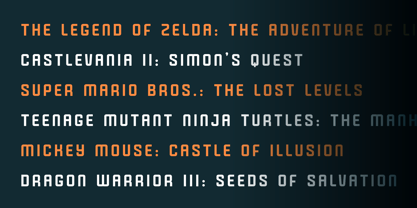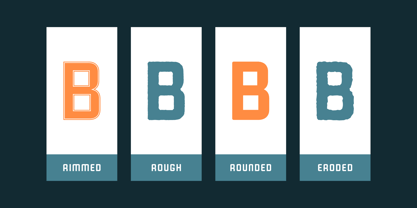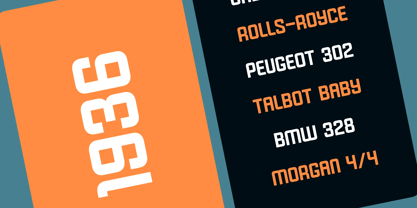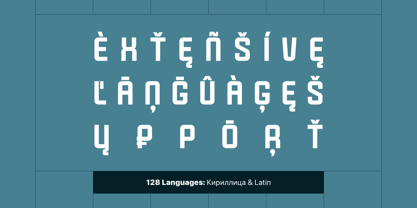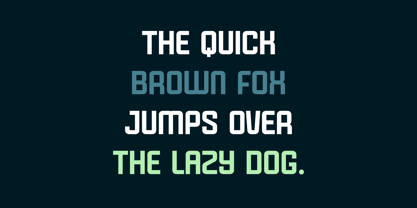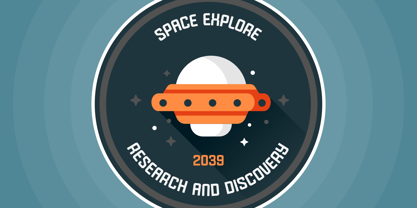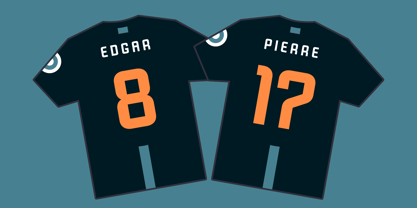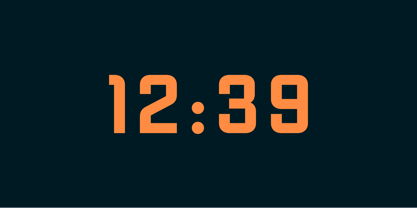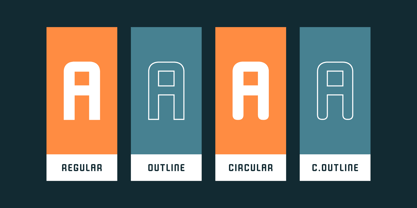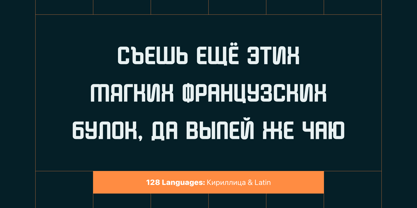
Smooty
by AlperCakici
The Smooty Font Family was designed by Alper Çakıcı and published by AlperCakici. Smooty contains 58 styles and family package options. More about this family
Smooty is a versatile sans serif typeface built for expressive branding and contemporary design systems. With an extensive range of stylistic variations, Smooty delivers both clarity and personality across digital and print applications. The family includes Angular, Circular, Rounded, Brush, Pencil, Outline, Inline, Rimmed, Rough, Eroded, and Noise styles — each with matching Italics — allowing designers to shift tone from clean and minimal to textured and handcrafted without leaving the type system. Smooty supports a wide range of Latin-based languages, making it ideal for international branding, editorial design, packaging, advertising, social media graphics, web design, and display typography. From sleek geometric compositions to organic and tactile aesthetics, Smooty adapts seamlessly to modern creative needs. Use Circular and Rounded styles for friendly, approachable branding. Choose Angular for sharper, contemporary layouts. Apply Rough, Eroded, or Noise for bold, distressed statements. Outline and Inline styles add dimensional impact to headlines and logos. Whether you're building a brand identity or crafting eye-catching headlines, Smooty gives you the flexibility to design without limits.
Designers: Alper Çakıcı
Foundry: AlperCakici